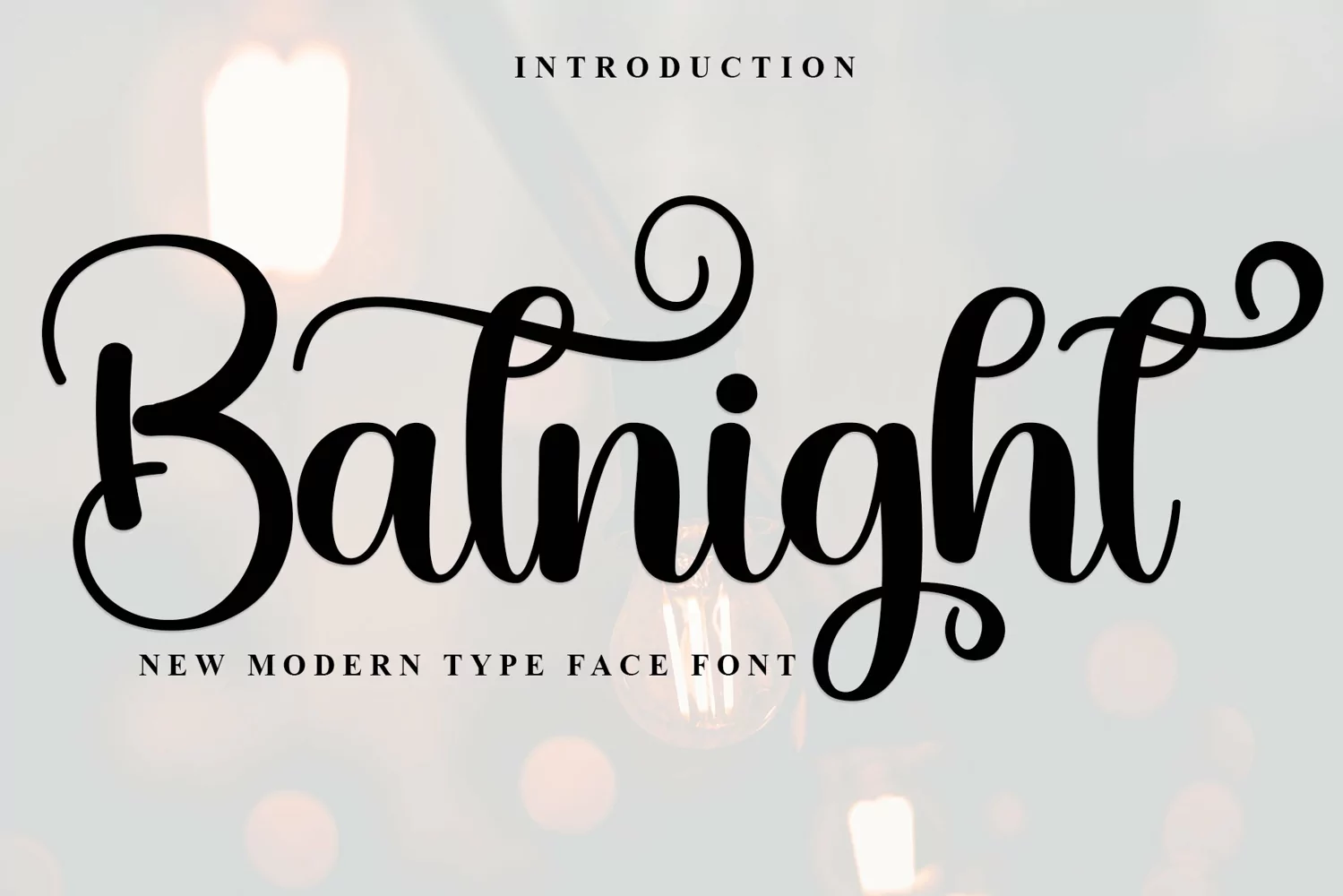
Batnight
Batnight is a beautiful and eye-catching font designed with a soft, unique touch. Its distinctive strokes give it a special character, making it meaningful and versatile for future use. With various characters, it’s perfect for design projects, crafts, and other creative works.